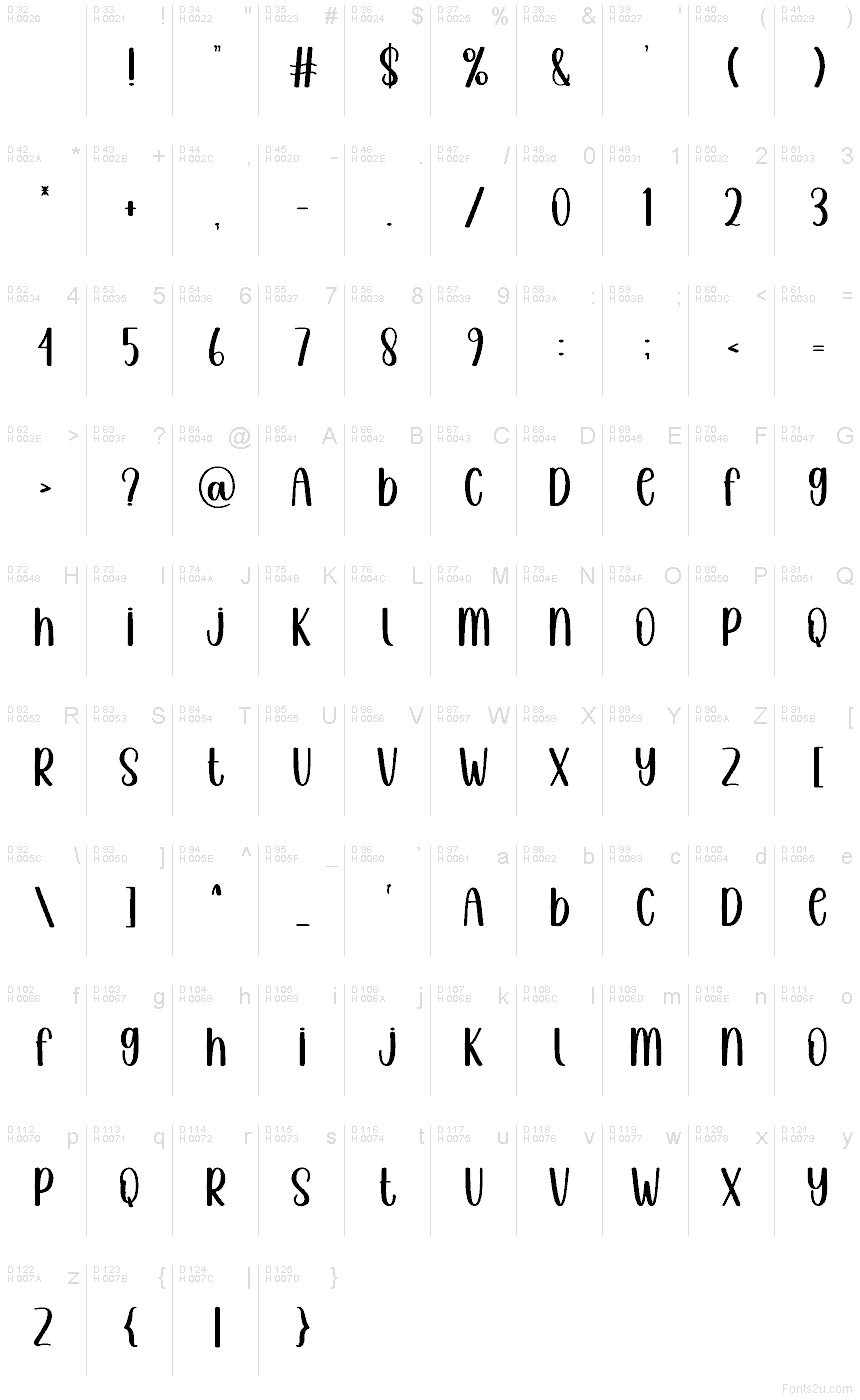
Foam Pillow
Foam Pillow font by Andi Moz combines a hand-drawn appearance with a casual aesthetic for a unique font that’s truly versatile. Its condensed letters carry whimsical vibes and an approachable feel, lending themselves to any project that needs them. Alongside its artistic flair is the brush style and retro influence that allows Foam Pillow to stay modern and helpful!
Design free towel pattern designs or brochures, logos or business cards, posters for events, or magazine covers. Design book covers and put together social media images; Foam Pillow works great on digital platforms as well as in print. Enjoy brainstorming endless ideas until you find the best ways to use it!